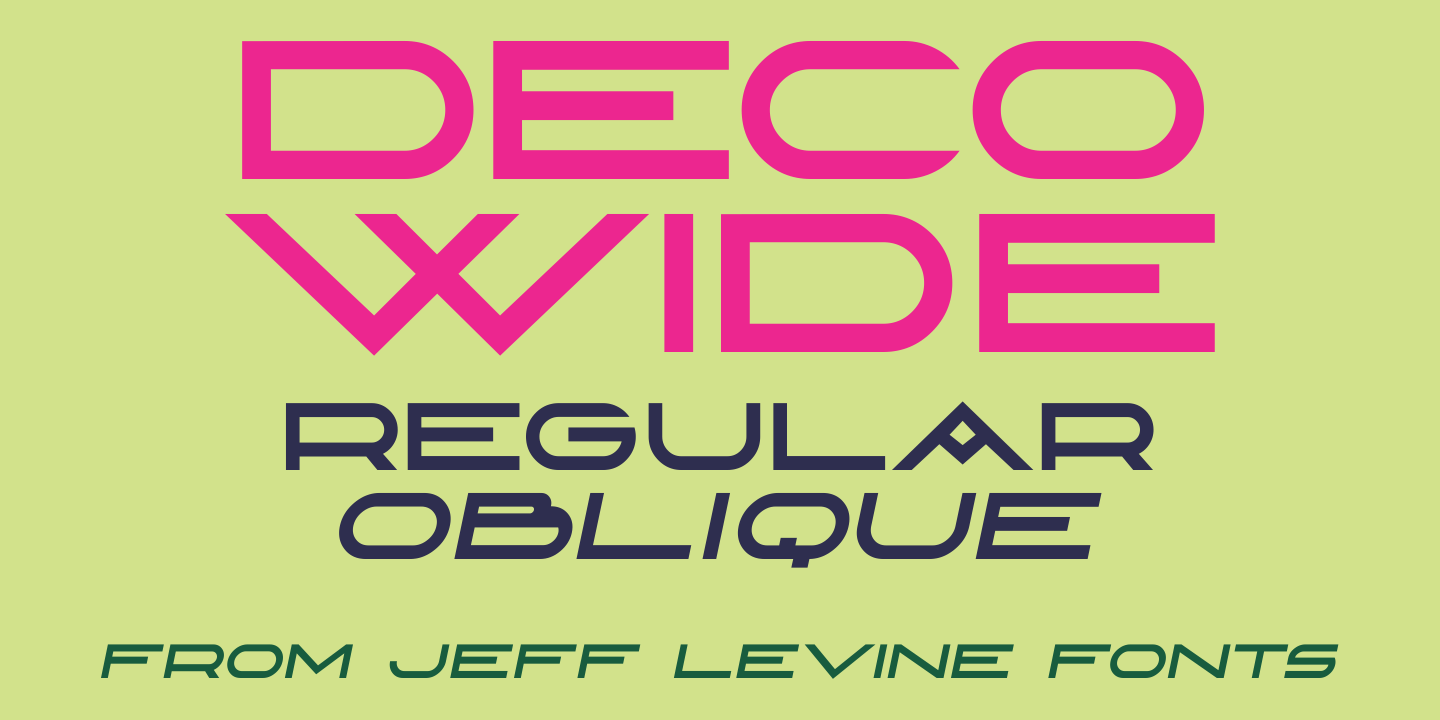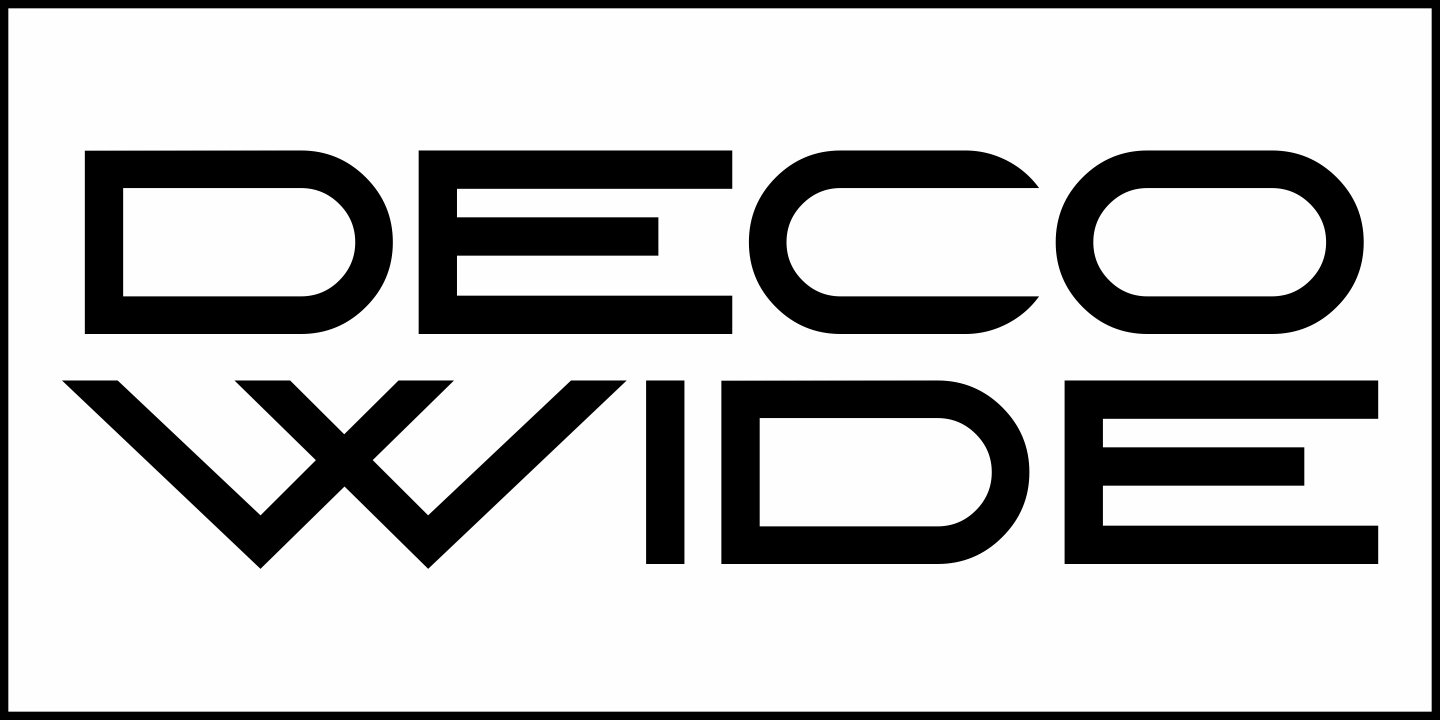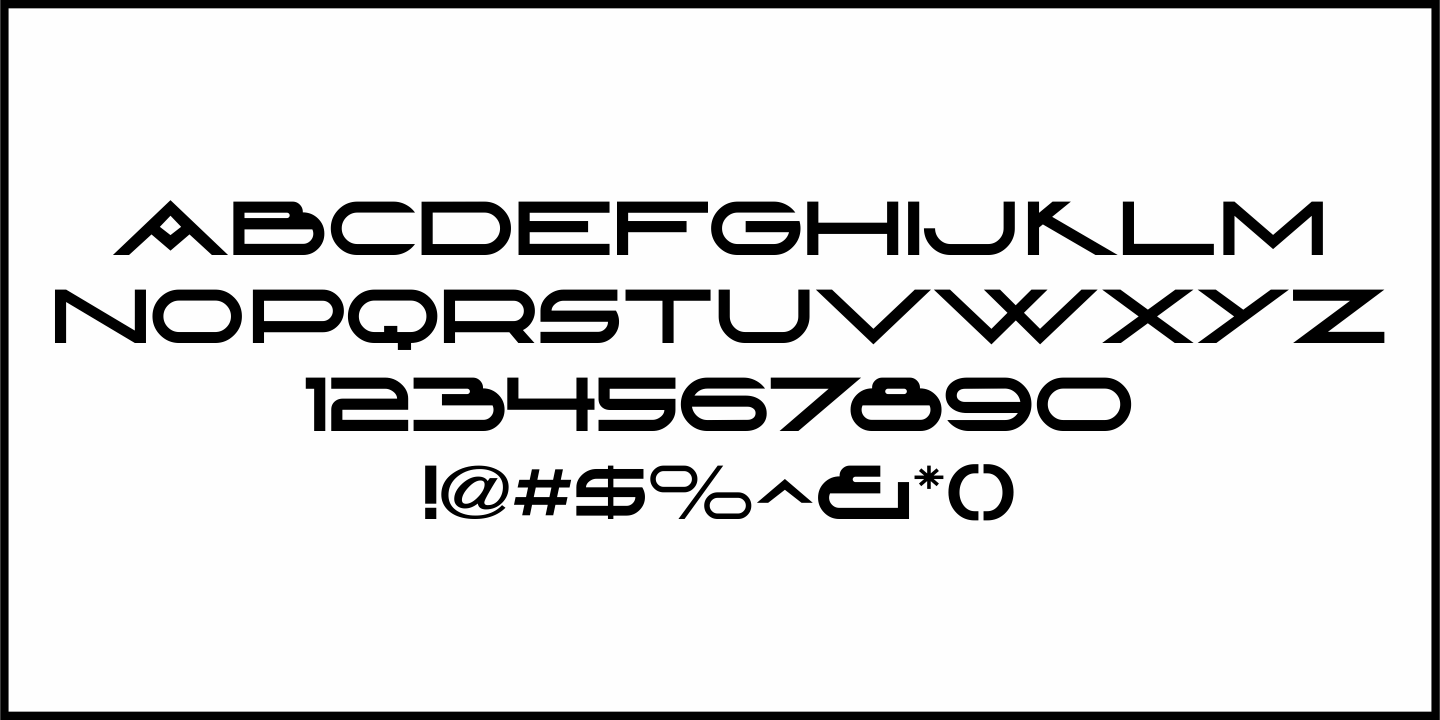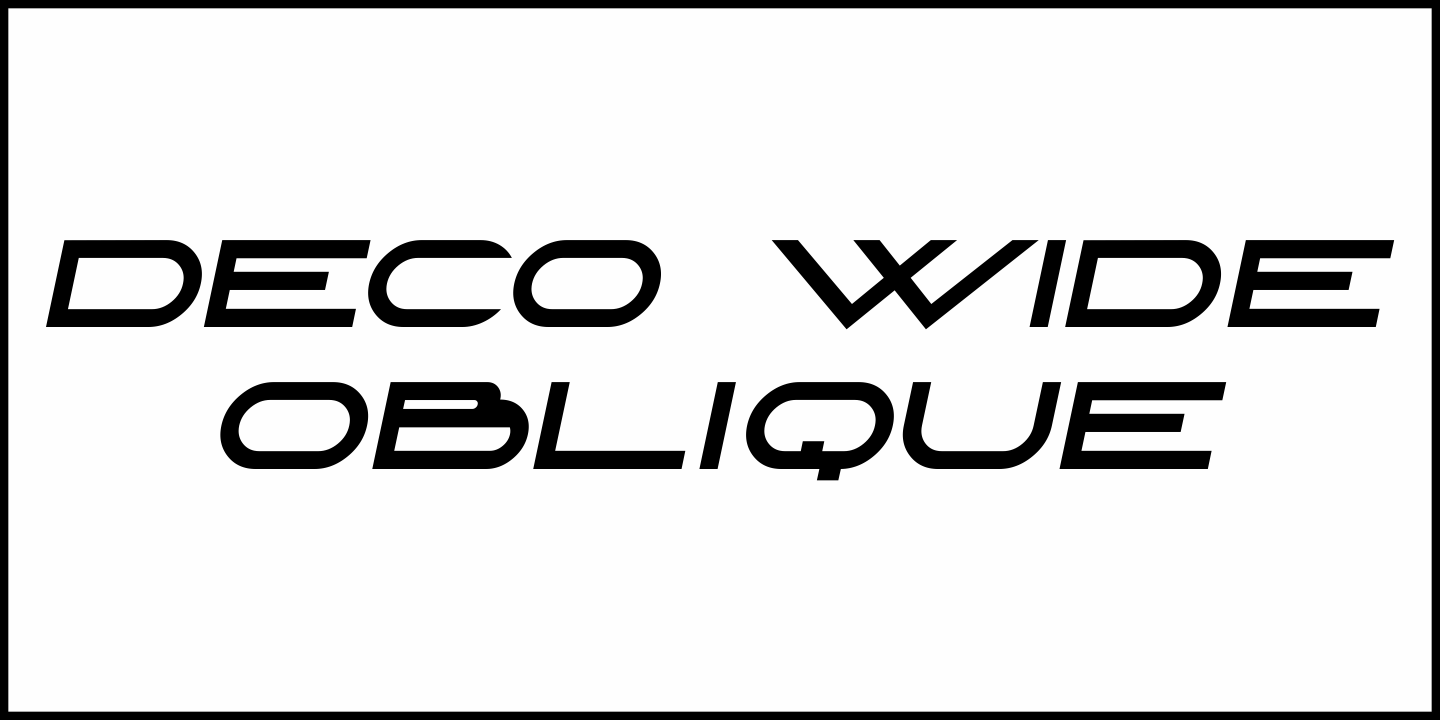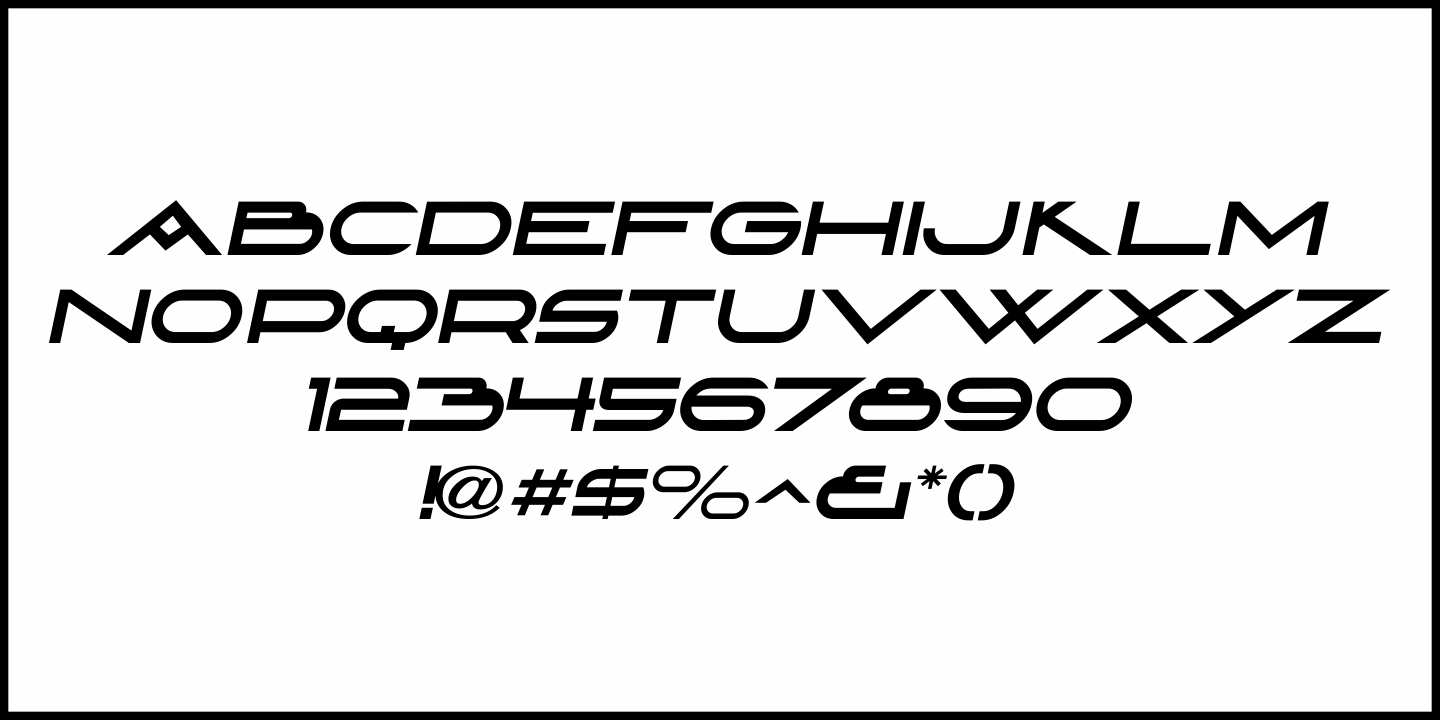
Deco Wide
A unique and stylized type design with Art Deco influence was found within the French publication “Modèles de lettres modernes par Georges Léculier” (“Models of Modern Letters by Léculier”).
This lettering is now digitally available as Deco Wide JNL in both regular and oblique versions.